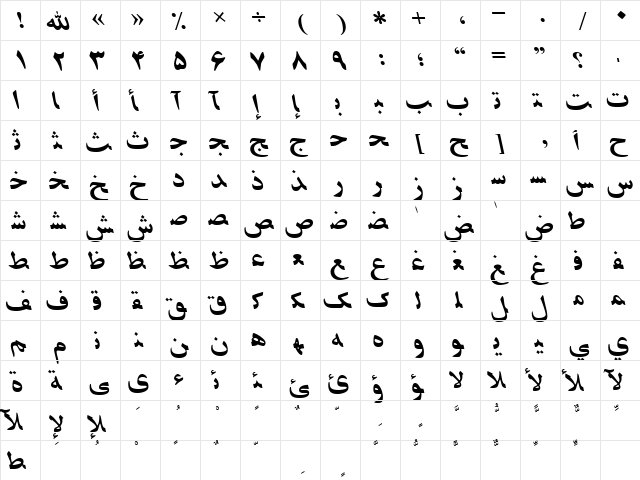
PersianZibaSSK Italic Font Preview
PersianZibaSSK Italic
PersianZibaSSK Italic Font Details
Design Context for PersianZibaSSK Typeface
PersianZibaSSK is a composed and adaptable typeface that performs quietly and consistently across a wide range of design contexts. The slanted form adds forward momentum and visual energy.